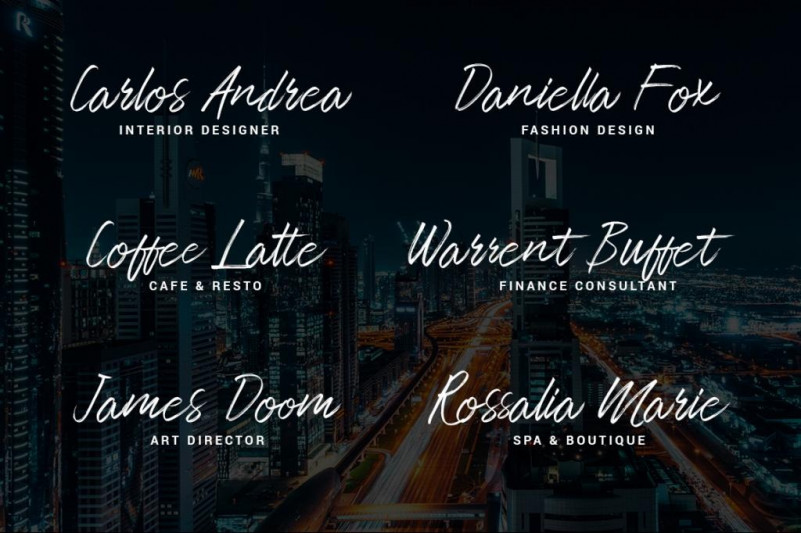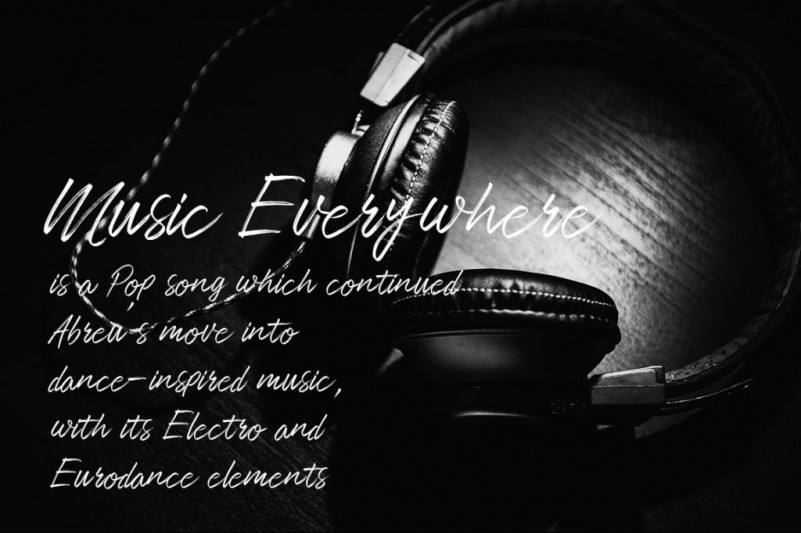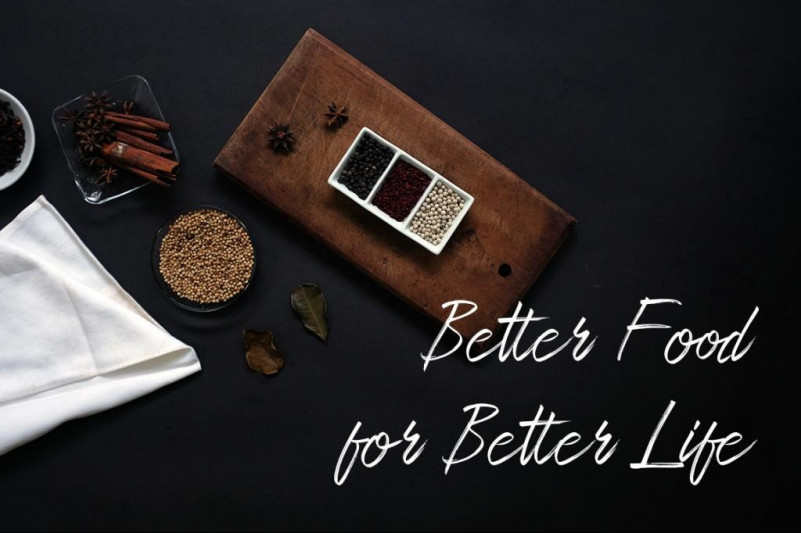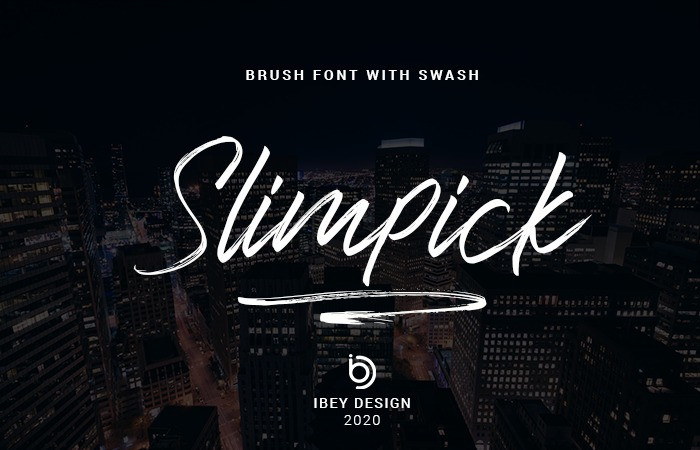
Slimpick Brush Font
This is a lovingly handwritten brush script , with an air of grace and flamboyancy. Slimpick is perfect for photography, watermark, social media posts, advertisements, logos & branding, invitation, product designs, label, stationery, wedding designs, product packaging, special events or anything that need handwriting taste.